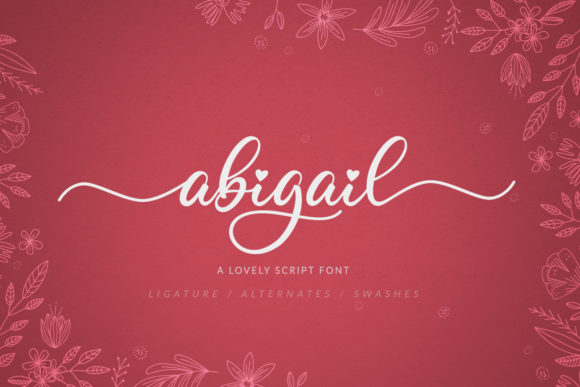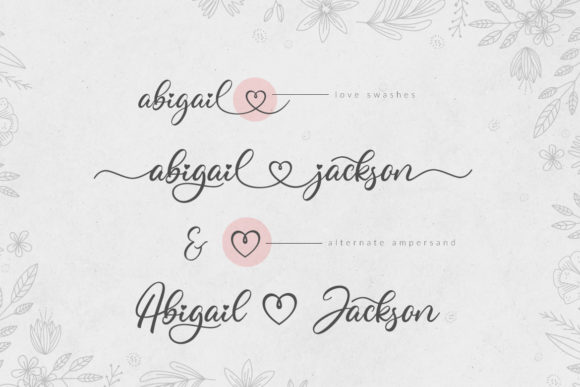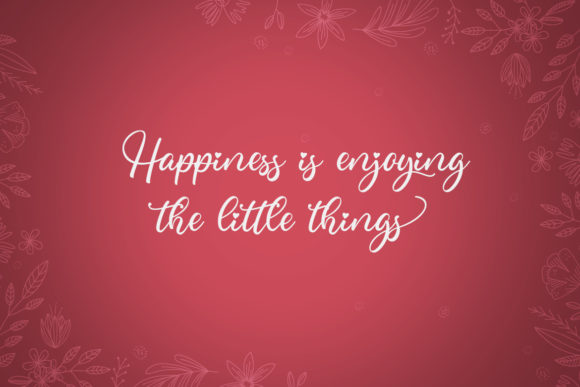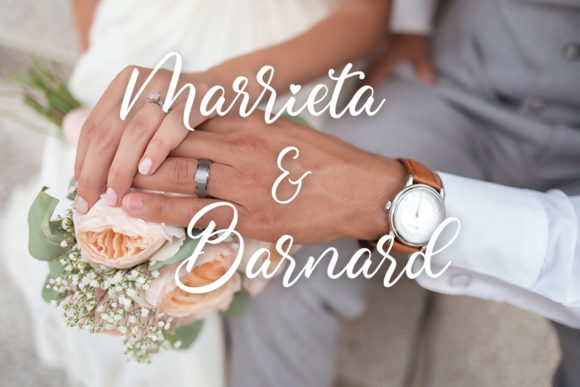
Abigail Font
Abigail is a romantic and cursive handwritten font, featuring lovely hearts as ornaments. Fall in love with its incredibly versatile style and use it to create gorgeous wedding invitations, beautiful stationary art, eye-catching social media posts, and much more!